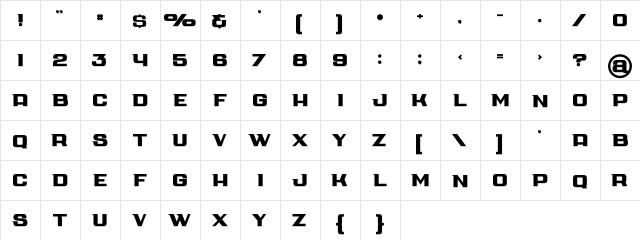
Cube Bold Bold
| Foundry | cruzine |
| Designer | cruzine |
Design Context for Cube Bold Typeface
Cube Bold is a composed and adaptable typeface that performs quietly and consistently across a wide range of design contexts. The heavy weight commands attention and anchors typographic hierarchies.